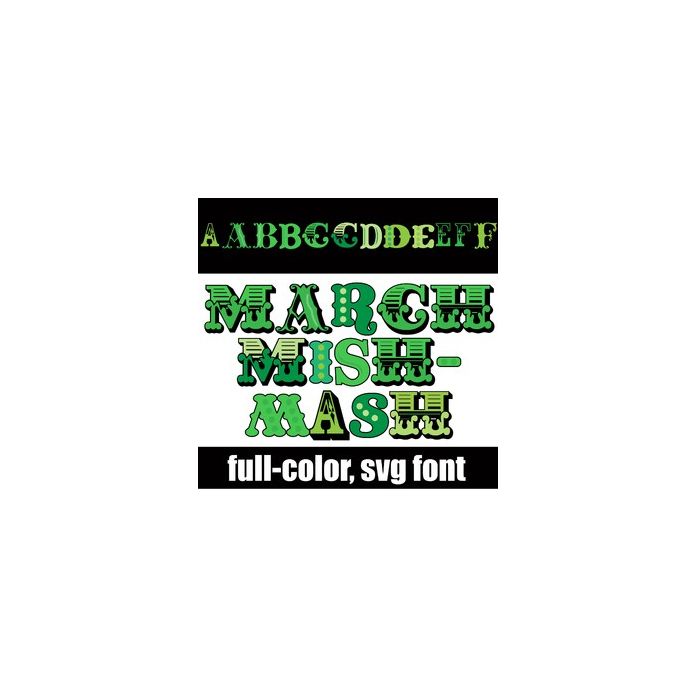
This full-color svg font features a variety of greens and font styles. There is an alt upper and lowercase with additional colors that you can access through Silhouette's glyph map.